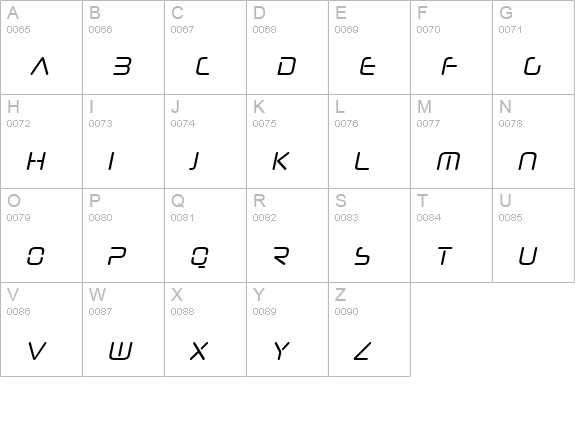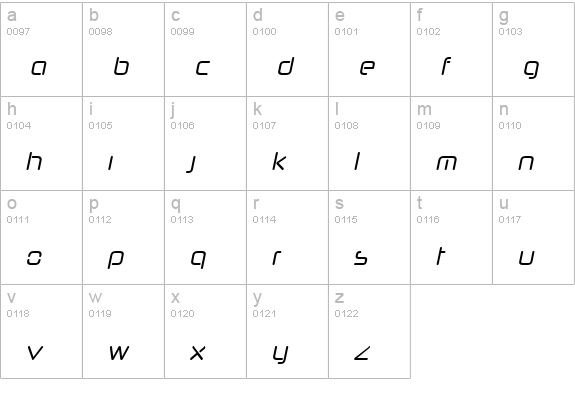
Neuropol Nova Cnd Italic Font Details
Neuropol Nova Cnd Italic is a distinctive, italic variant in the Neuropol typeface family \xE2\x80\x94 well suited to design and typography projects.
Neuropol Nova Cnd Italic font is a modern and stylish typeface that exudes a futuristic vibe with its sleek and geometric design. The italic style adds a touch of sophistication and elegance to any text, making it perfect for a wide range of design projects. Its clean lines and sharp angles give it a contemporary look that is ideal for branding, advertising, and editorial design. What sets Neuropol Nova Cnd Italic font apart is that it is not only visually striking but also versatile and easy to read. Whether used in headlines, body text, or as a display font, it maintains its legibility and impact. The italicized characters add a dynamic flair to the overall appearance, making it a standout choice for projects that require a touch of flair. The best part is that Neuropol Nova Cnd Italic font is available for free download at FontsMarket.com. This means that you can easily access this unique and eye-catching typeface to elevate your designs without any cost. Don't miss out on the opportunity to enhance your projects with this stylish and modern font that will surely make a lasting impression.